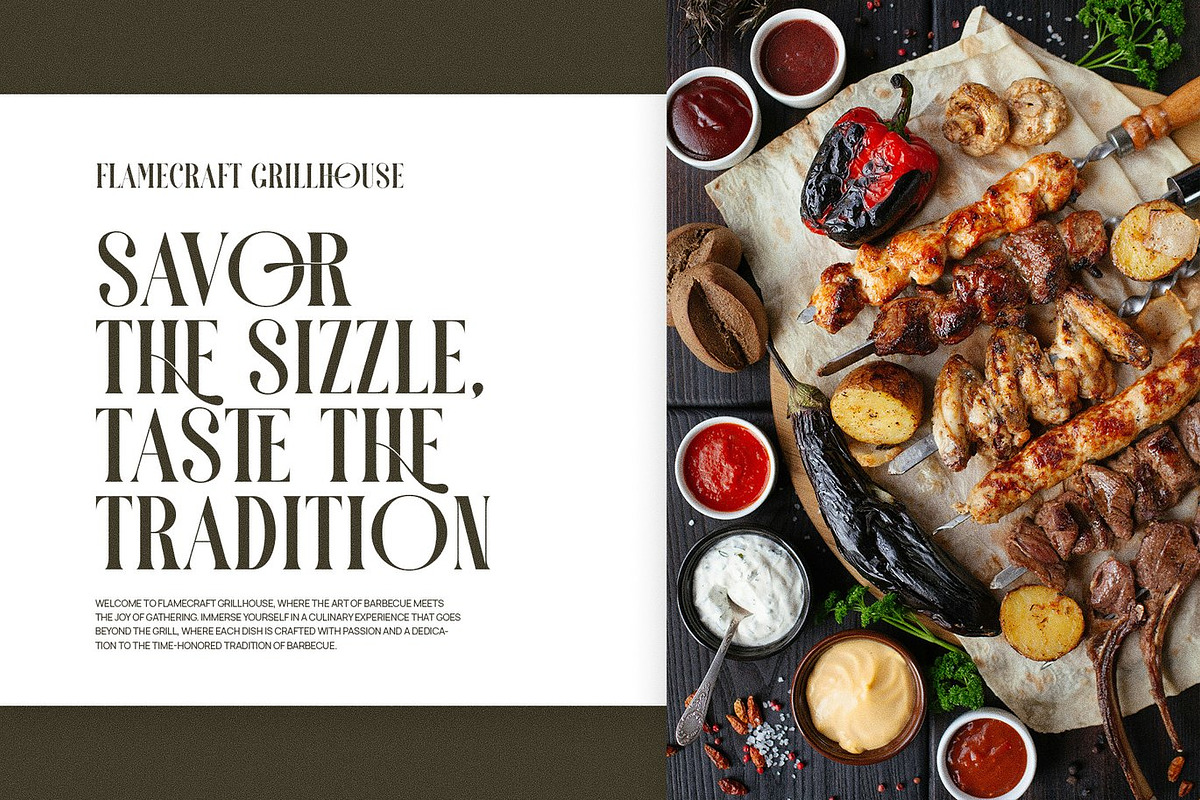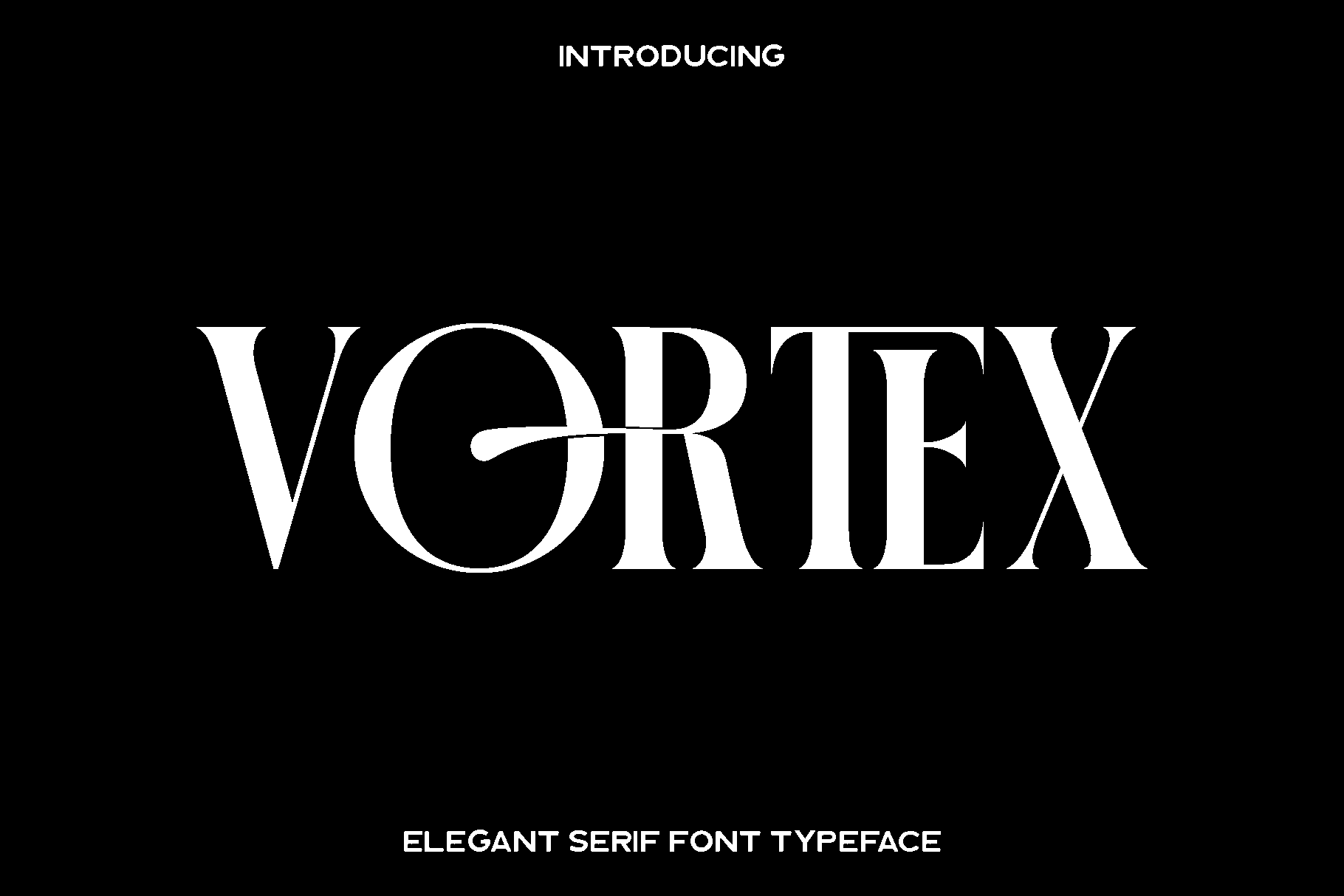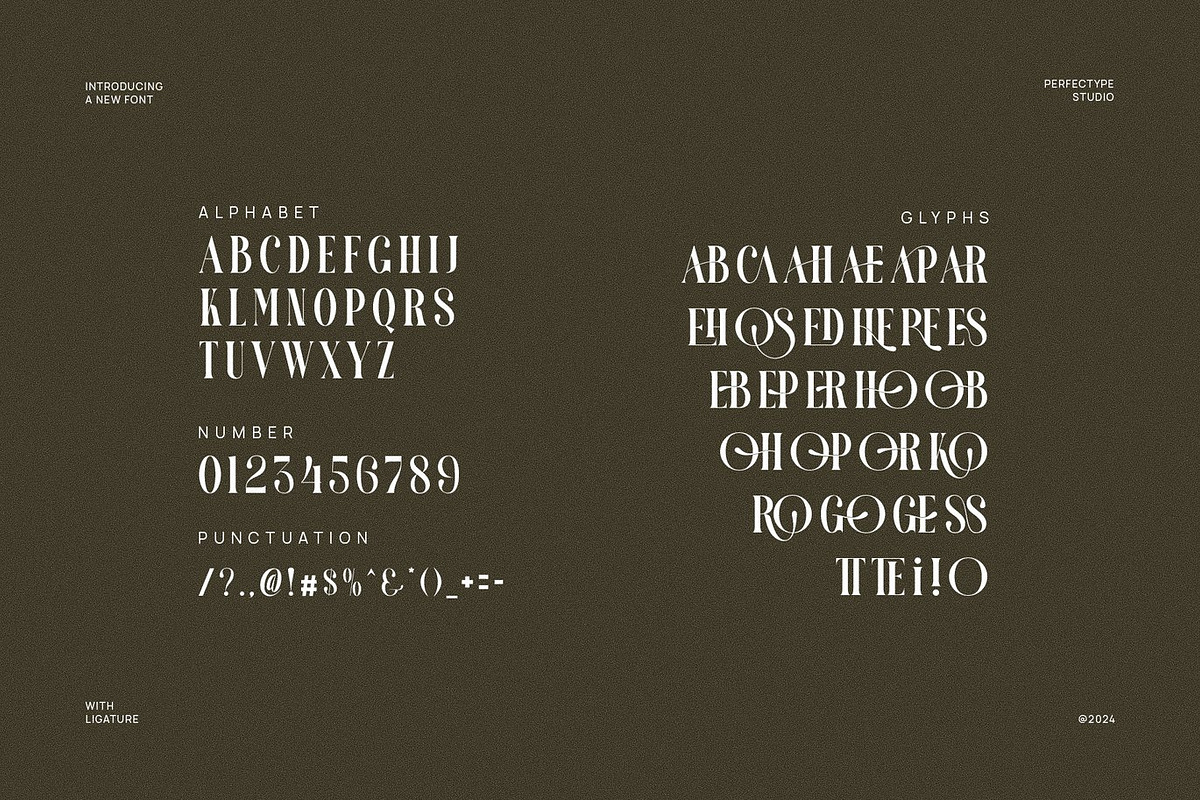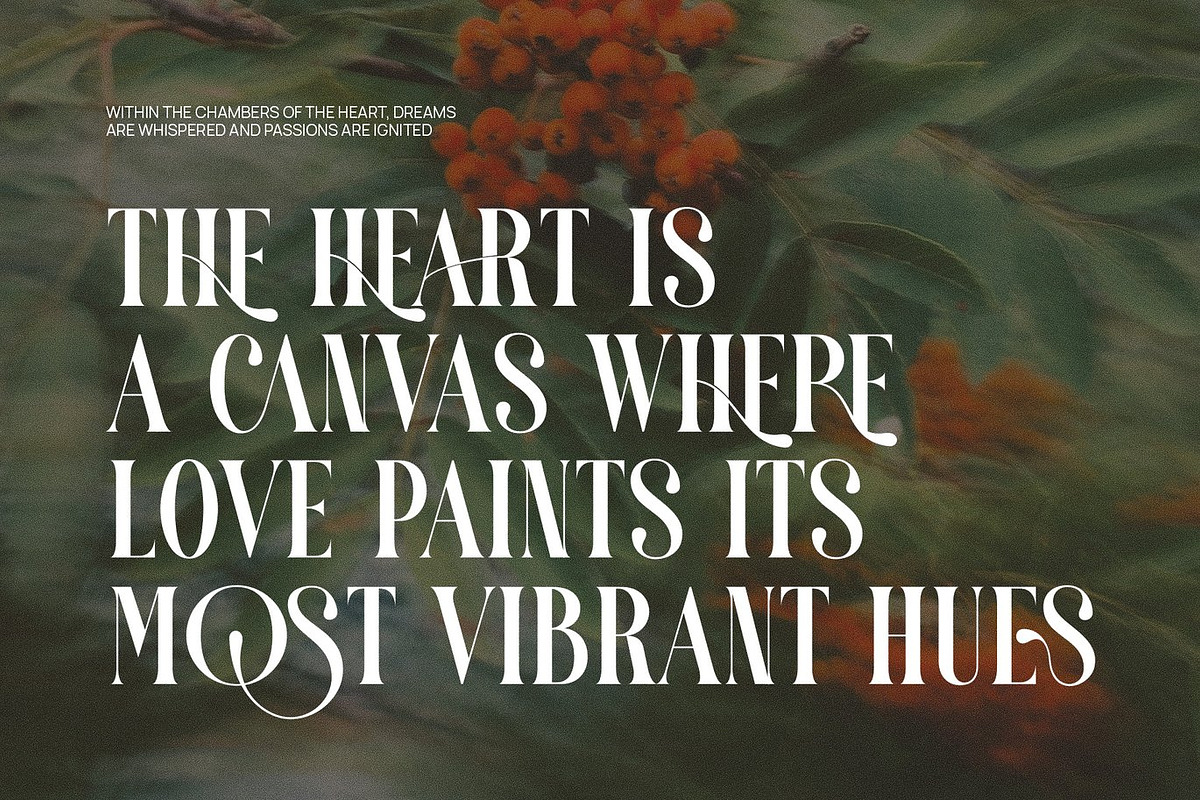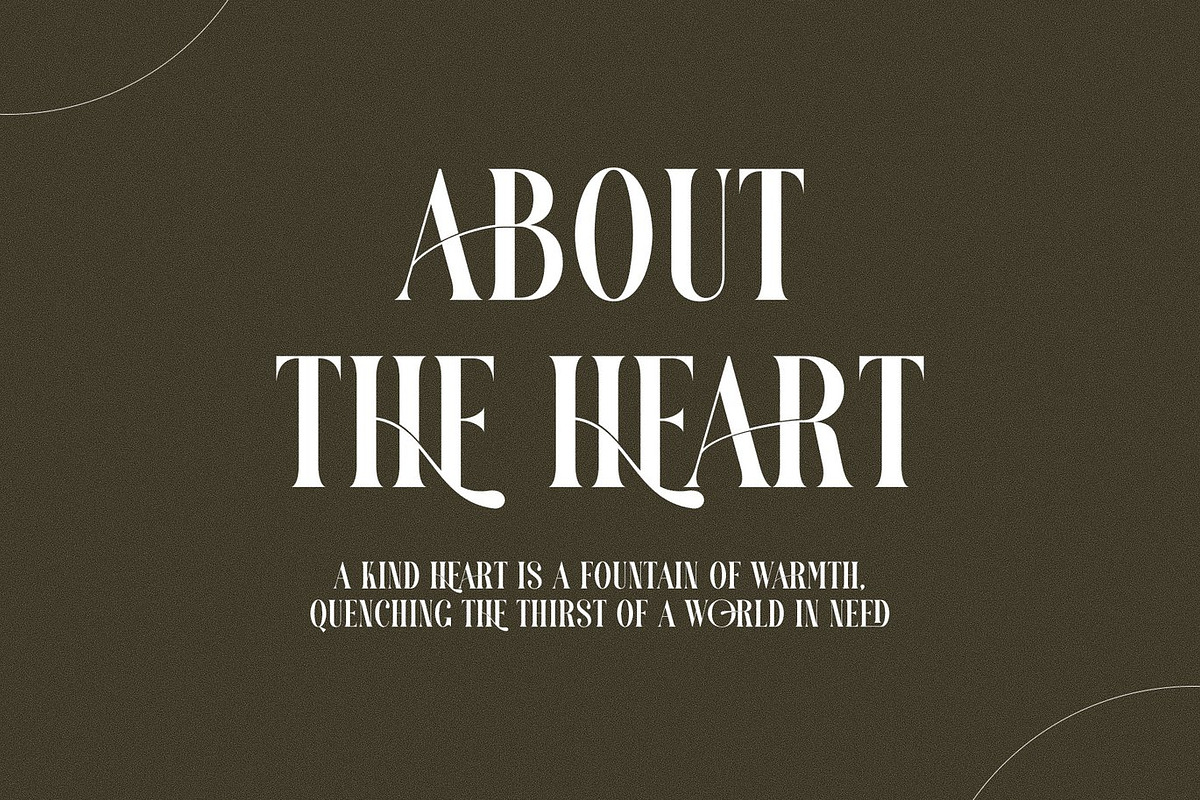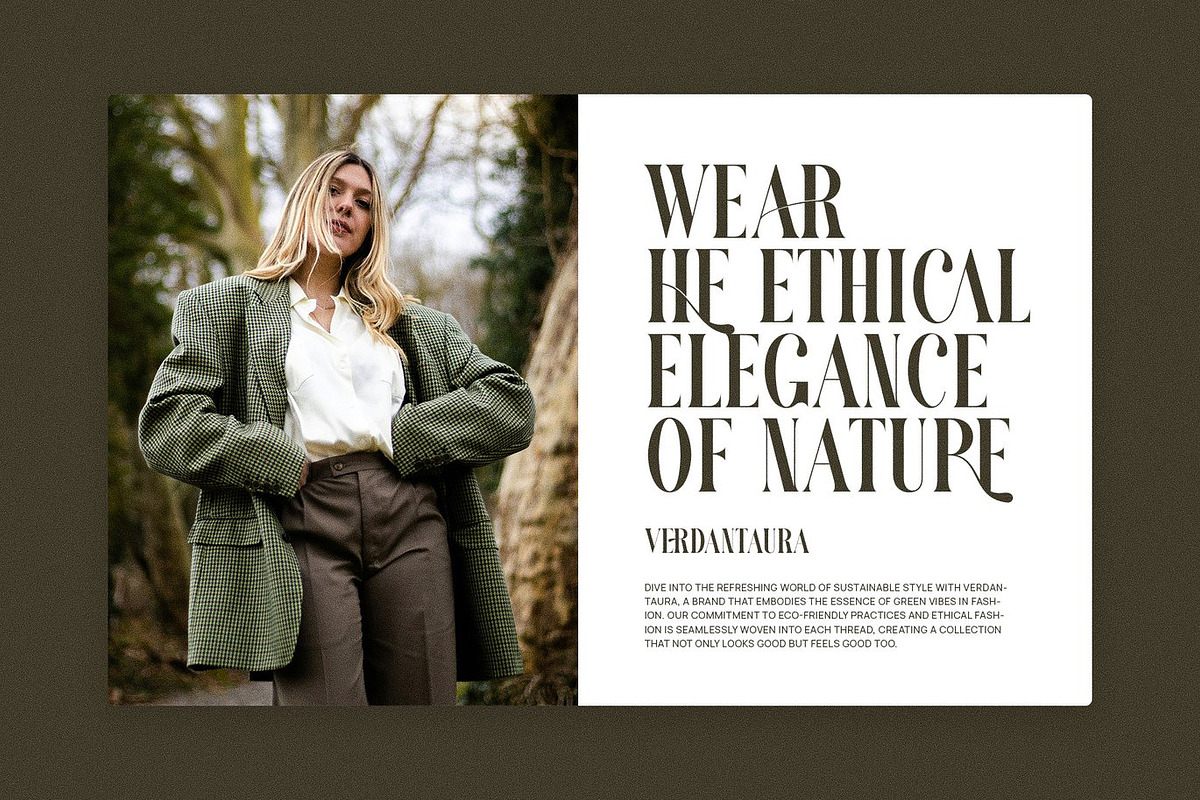
Vortex - Elegant Serif Font
Vortex is an elegant and refined serif font created for designers who want to bring a sense of luxury and sophistication to their work. Inspired by timeless high class typography, Vortex features graceful curves, polished shapes, and a smooth flow that elevates any visual project. Its stylish letterforms radiate confidence and charm, making it a perfect choice for premium branding and expressive design.
This font shines in logos, upscale branding, wedding stationery, product packaging, advertisements, photography watermarks, social media visuals, and editorial layouts. The clarity and balance of each character ensure excellent legibility, even at smaller sizes, while its elegant aesthetic adds a touch of exclusivity to both modern and classic designs. Whether you are creating a luxury brand identity or a romantic invitation, Vortex adapts beautifully to every concept.
Vortex brings a sophisticated voice to your creative work, making your designs feel polished, intentional, and high end. Its versatility and stylish presence allow it to stand out across digital platforms and print projects alike, offering designers a reliable and beautiful typographic tool for countless applications.
Vortex Serif Font Features:
• Standard characters
• Numbers and punctuation
• Accented characters for Western European languages